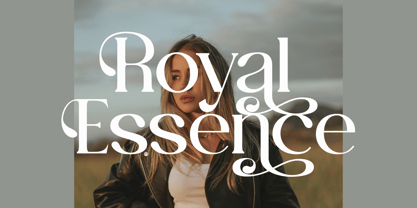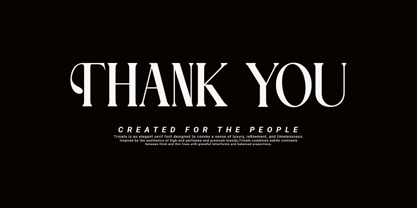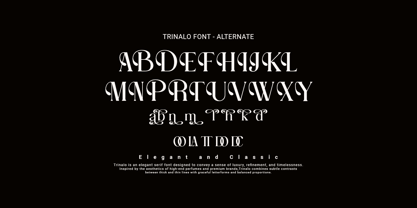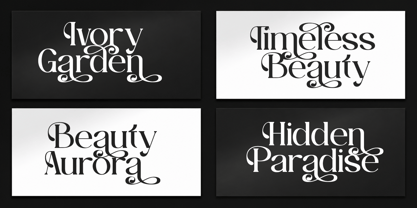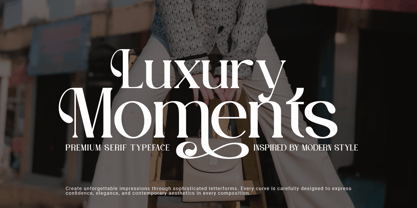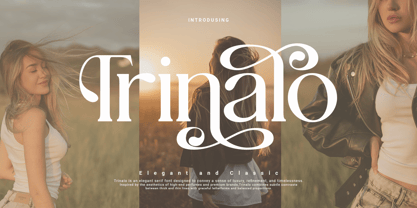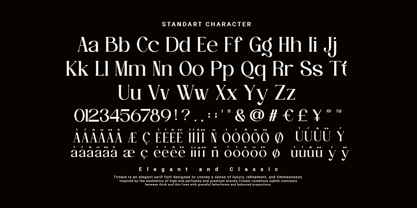
Trinalo
Trinalo is a sophisticated serif typeface that embodies timeless elegance with a modern twist. Designed for a refined and luxurious look, Trinalo combines graceful high-contrast strokes, distinctive serifs, and beautifully balanced proportions. Its classic inspiration is enhanced by contemporary details, making it suitable for a wide range of creative and professional applications.
Each letter in Trinalo is meticulously designed to provide excellent legibility while maintaining a strong visual personality. Elegant curves and sharp serif tips create a premium aesthetic that stands out in both large headlines and stylish branding materials. Whether used for editorial layouts or luxury product packaging, Trinalo adds an unmistakable sense of sophistication.
This typeface is an excellent choice for fashion brands, cosmetic packaging, wedding invitations, magazines, book covers, restaurant menus, logos, and high-end marketing materials. It effortlessly blends the beauty of traditional serifs with modern flexibility, allowing designers to create compositions that feel both classic and contemporary.
Trinalo is perfect for projects that demand elegance, exclusivity, and professionalism. Its refined character enhances visual identity while providing the flexibility needed for both digital and print media. From luxury branding to premium editorial design, Trinalo offers a distinctive typographic experience that communicates confidence, style, and timeless beauty.
With its harmonious letterforms and graceful details, Trinalo is more than just a typeface—it's a statement of elegance. Whether you're designing for fashion, lifestyle, beauty, or luxury, Trinalo helps transform ordinary typography into memorable visual storytelling, making every project look sleek, sophisticated, and effortlessly stylish.